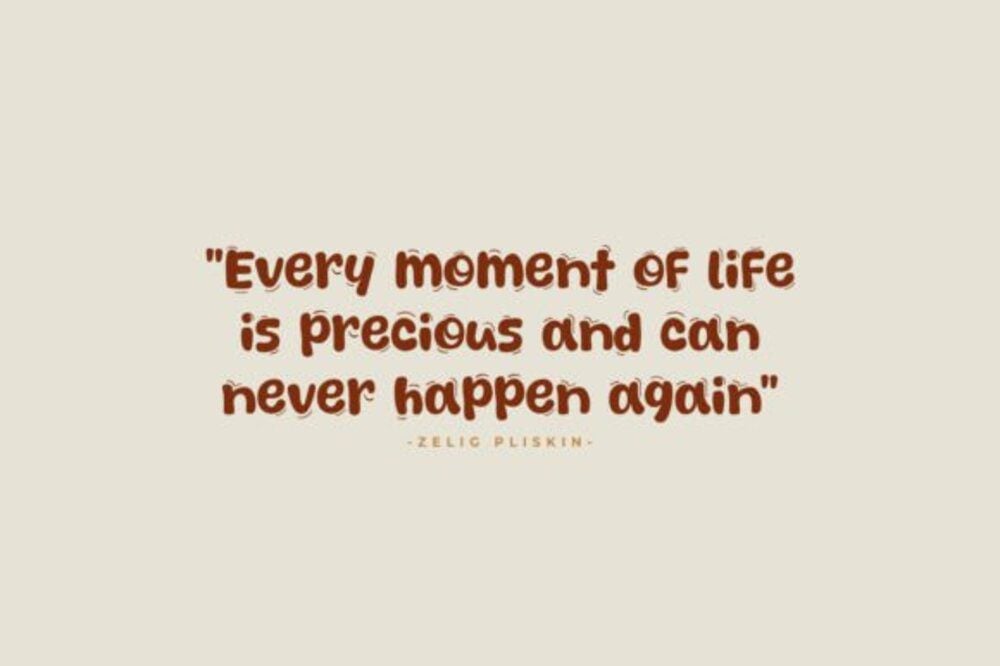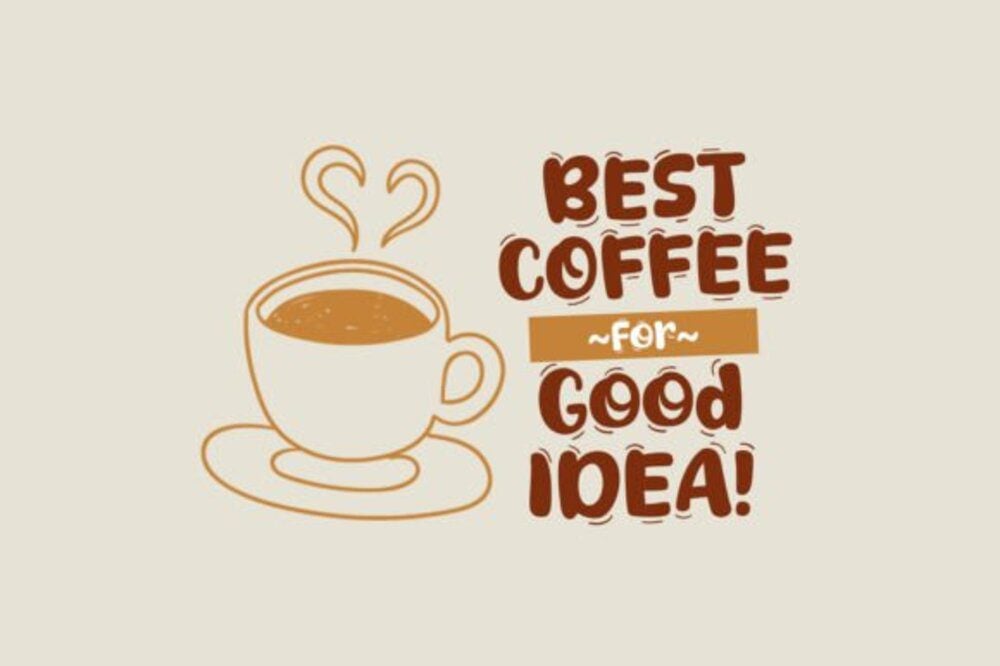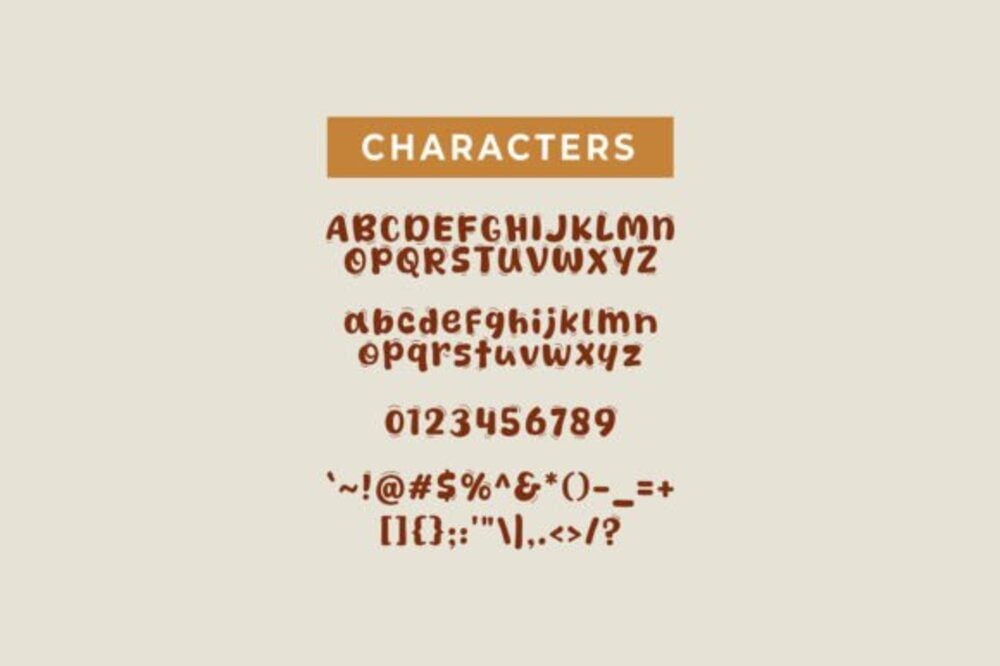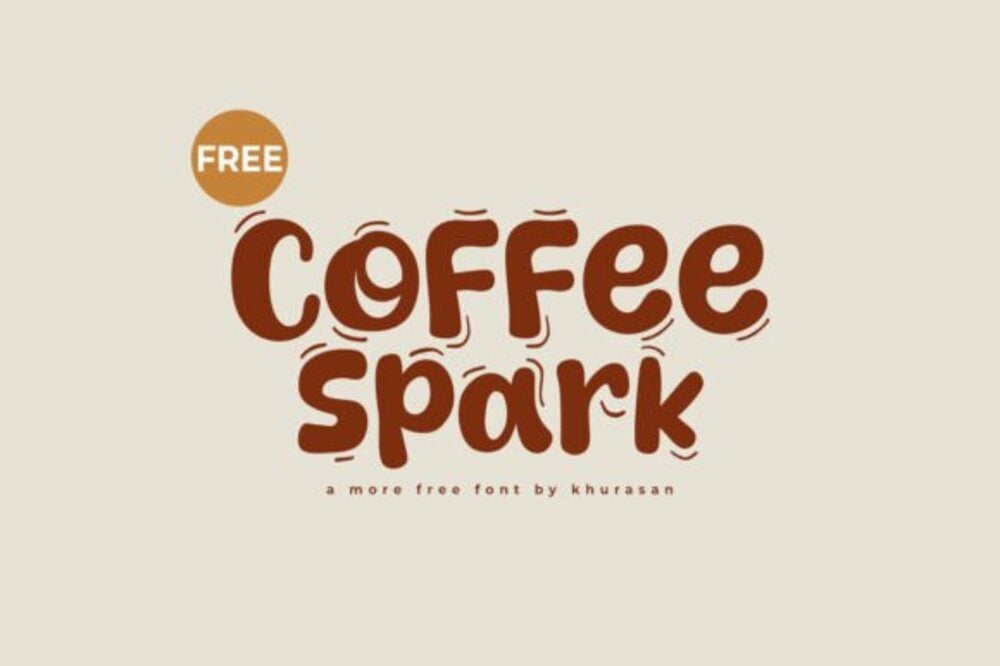
Coffee Spark Font
Coffee Spark Font is a warm and inviting typeface inspired by the cozy vibes of a perfect coffee break. With its smooth curves and subtle energy, it’s ideal for café branding, menus, packaging, and social media posts. The font blends modern style with a hint of playfulness, creating a delightful and versatile choice for projects that need a spark of charm.